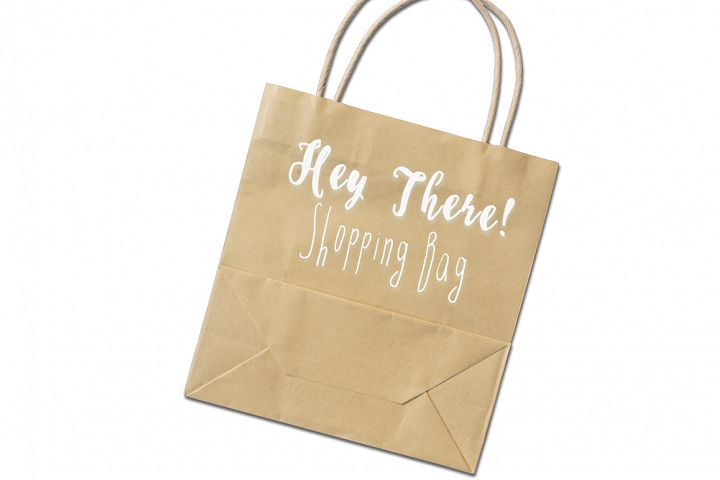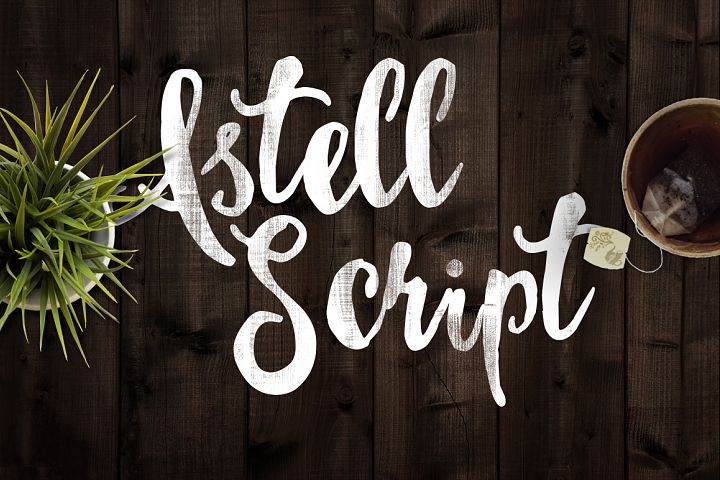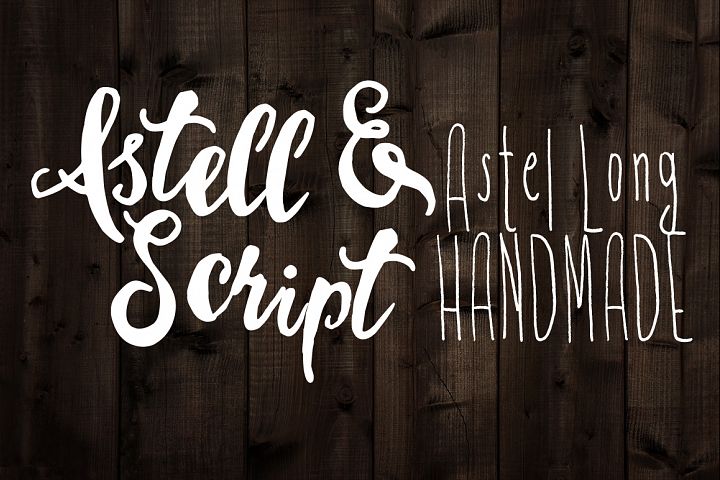
Astel  Font
About Astel  Font
This hand-painted script will give your designs a vintage look. It comes in 2 styles and can be used for various purposes such as headings, logos, invitations, t-shirt designs, greeting cards, posters, labels, book covers, brochures, and much more!